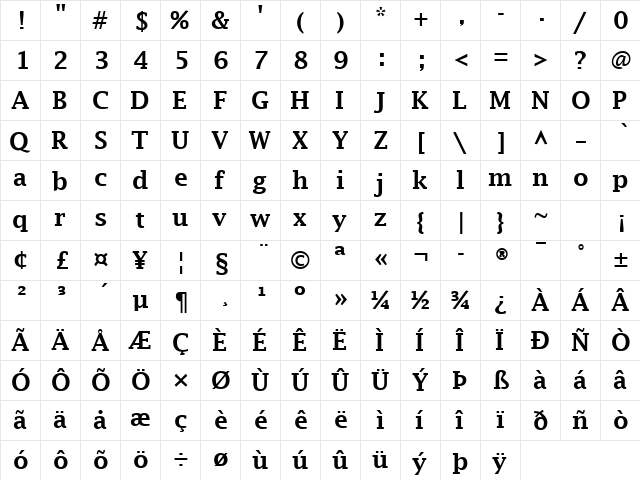
Signs Of Life 3 Demibold
Signs Of Life 3 is a composed and adaptable typeface that performs quietly and consistently across a wide range of design contexts. Its bold stroke weight gives it real presence on the page.